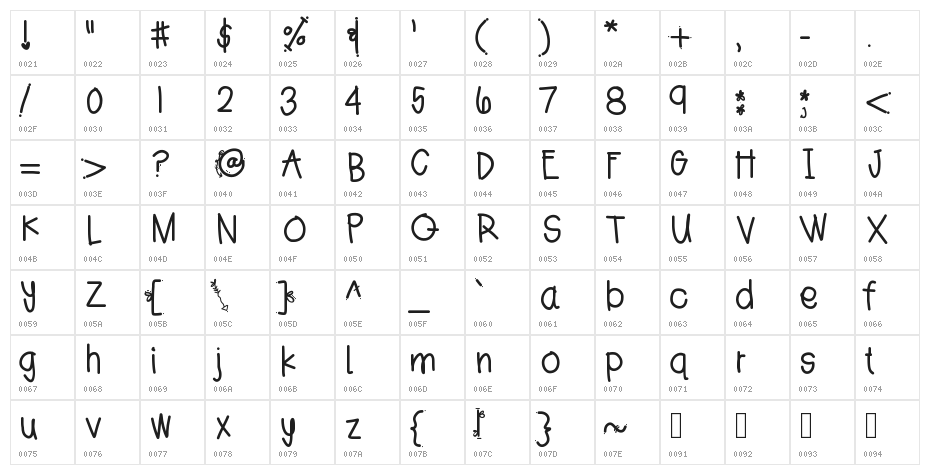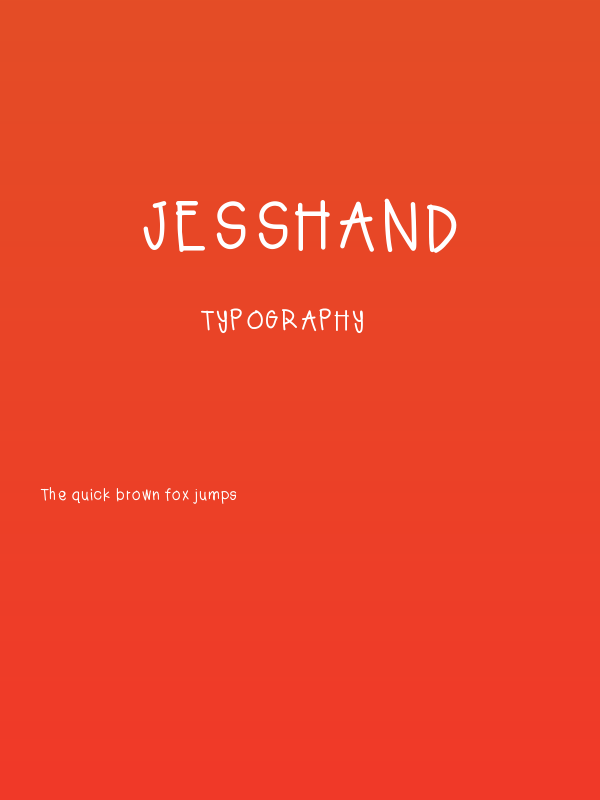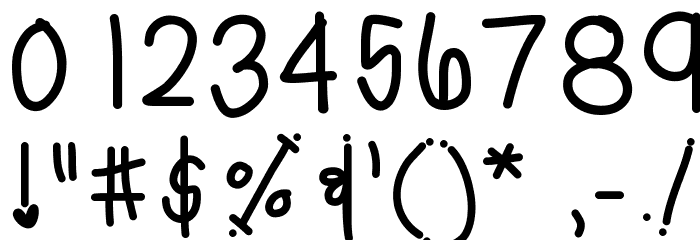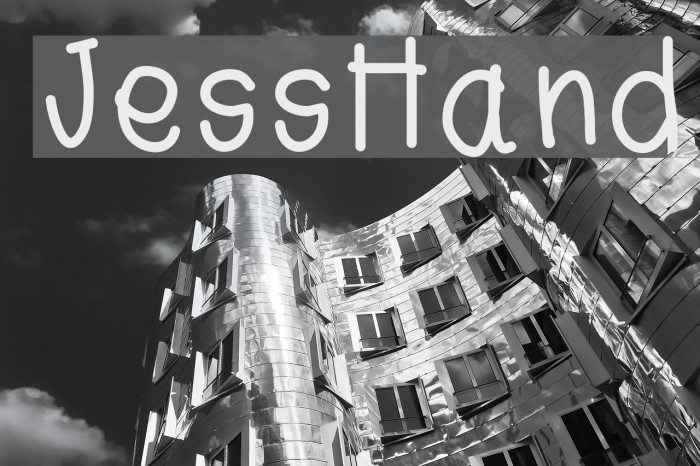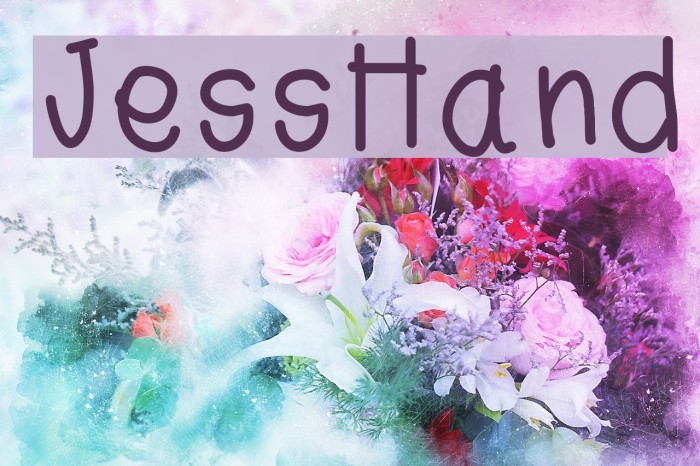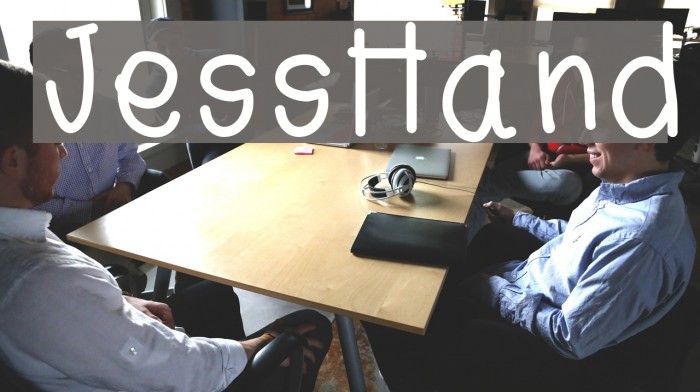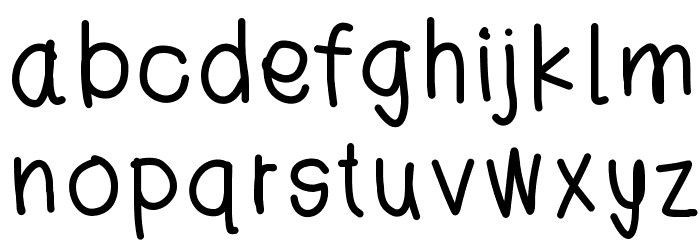
JessHand Font
JessHand Description
This font features a playful and casual handwritten style, characterized by its rounded and slightly irregular letterforms. The uppercase and lowercase letters maintain a consistent flow, with a friendly and approachable appearance. The numerals and special characters complement the alphabet with the same informal and whimsical design. The overall look is reminiscent of a personal note or a casual invitation, making it ideal for projects that require a touch of personality and warmth.
| Use Case | Headlines, Informal text, Personal notes |
| Proposed Projects | Ideal for greeting cards, children's books, casual invitations, and personal branding projects. |